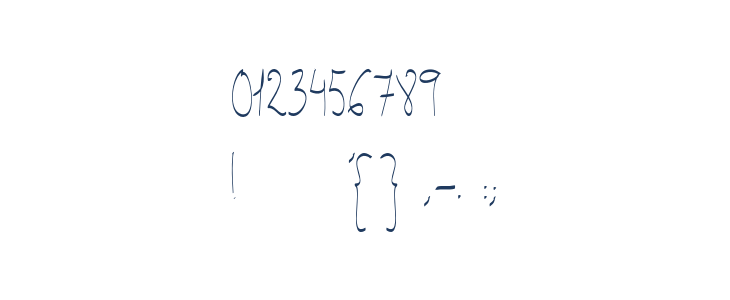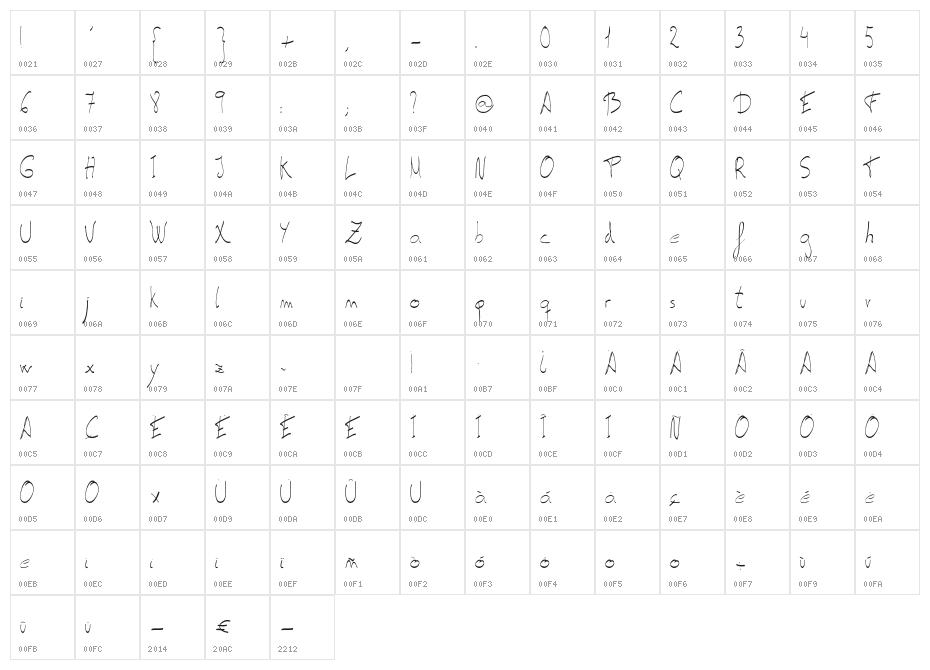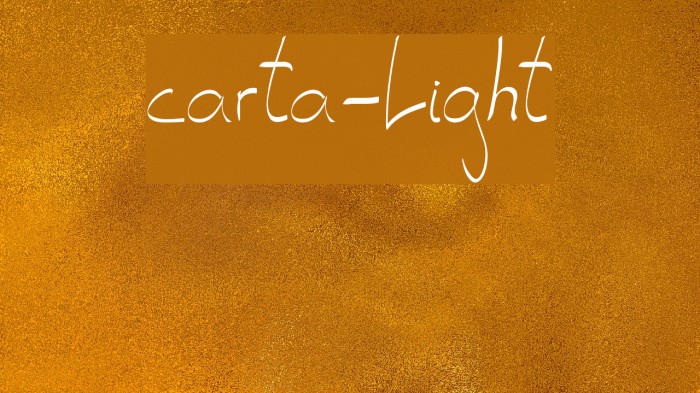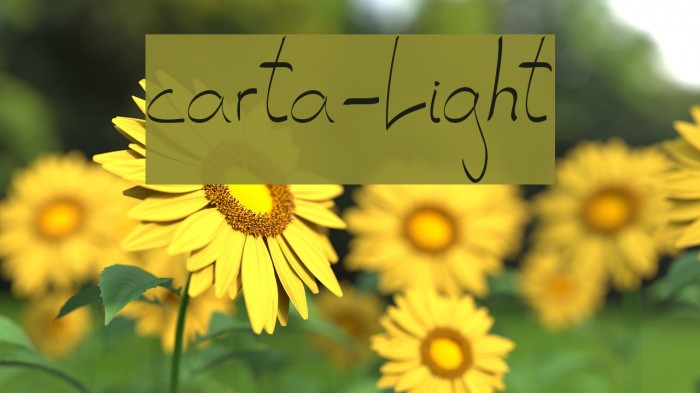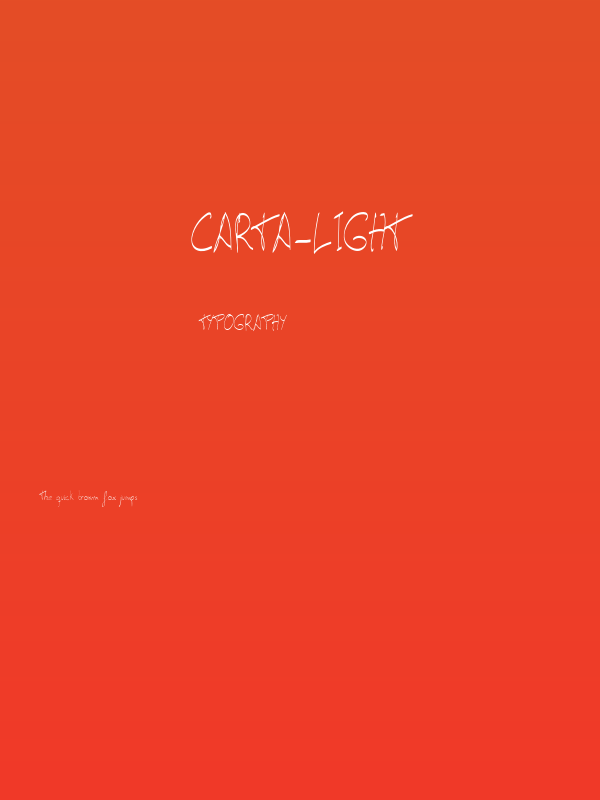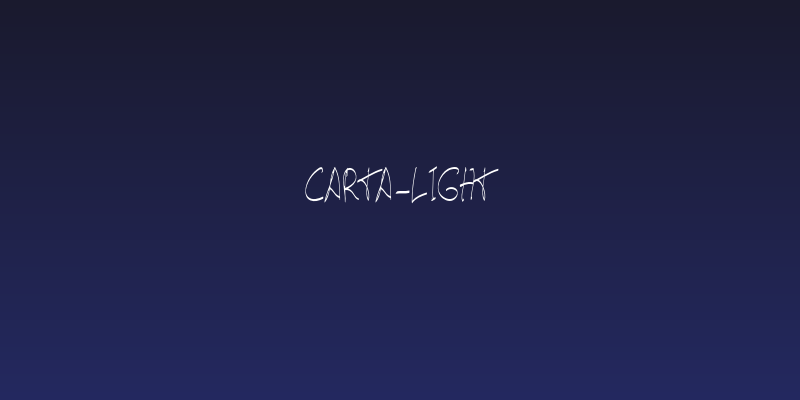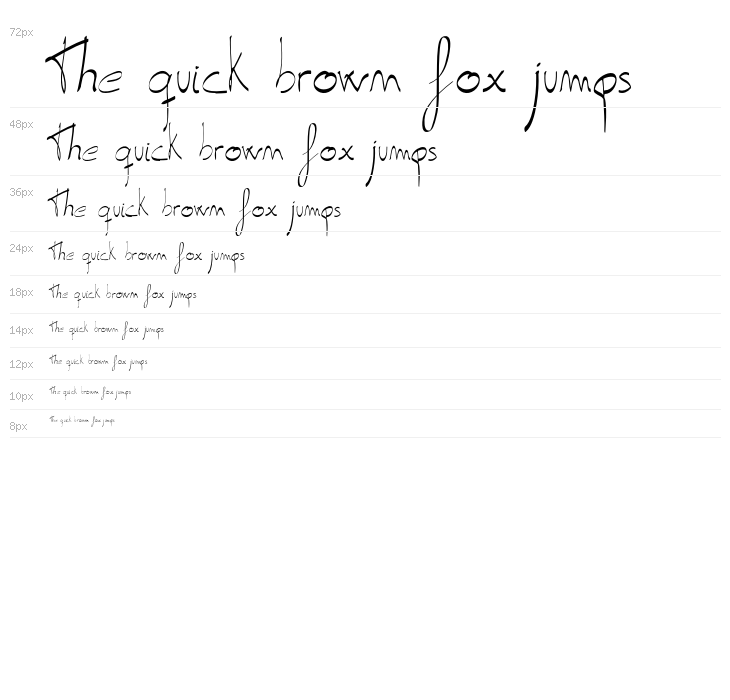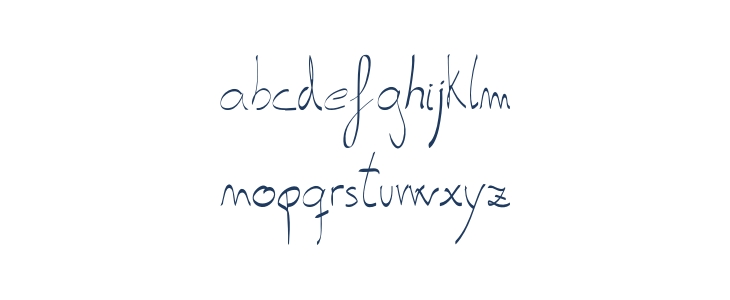
carta-Light Font
carta-Light Description
This font features a handwritten style with a casual and artistic flair. The characters are slightly irregular, giving it a personal and organic feel. The strokes are thin and exhibit a light touch, which adds to its delicate appearance. The uppercase letters are tall and slender, while the lowercase letters maintain a consistent flow, enhancing readability. The numbers and special characters follow the same fluid style, making them cohesive with the rest of the font. This font's unique charm lies in its ability to convey a sense of creativity and individuality.
Overall StyleCasual, Artistic
Use CaseCreative projects, Personal notes, Invitations
Proposed ProjectsIdeal for personal notes, creative projects, invitations, and artistic branding.